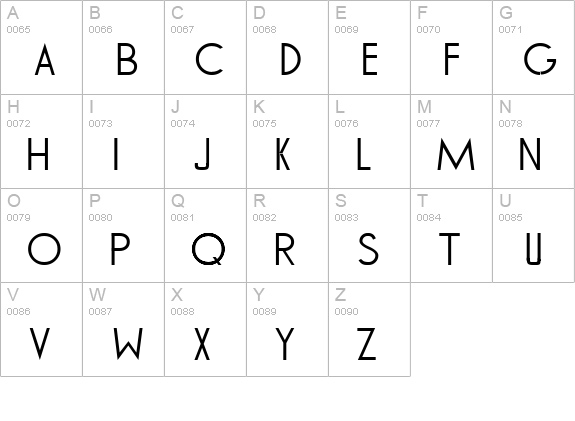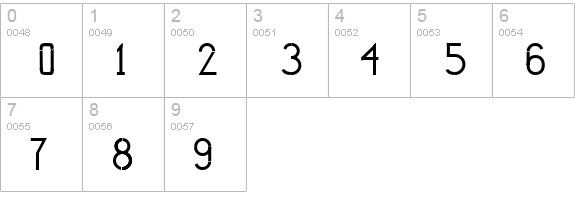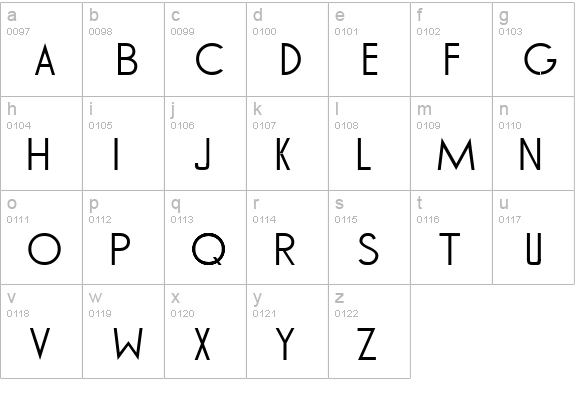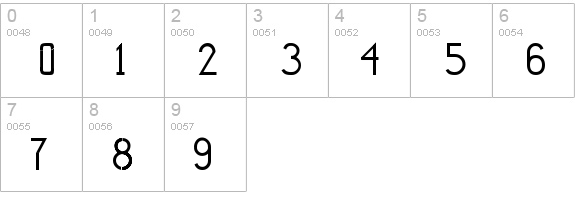
TOMMY HILFIGER AF font is a stunning display typeface that embodies the essence of modernity and sophistication. With its sleek lines and elegant curves, this font exudes a sense of timeless elegance. Designed with utmost precision and attention to detail, TOMMY HILFIGER AF font is perfect for creating eye-catching logos, stylish headlines, and captivating designs. What sets TOMMY HILFIGER AF font apart is not just its impeccable design, but also its availability. This remarkable font is freely available to download at FontsMarket.com. Whether you're a professional designer or a casual enthusiast, you can now effortlessly access this exceptional font and add a touch of finesse to your creative projects. TOMMY HILFIGER AF font boasts a wide range of characters, including uppercase letters, lowercase letters, numerals, punctuation marks, and special symbols. Its versatility allows you to experiment with different styles, sizes, and layouts, ensuring that your designs truly stand out. Whether you're designing a fashion magazine, a corporate branding project, or a personal blog, TOMMY HILFIGER AF font is the perfect choice to elevate your work to new heights. Its clean and contemporary aesthetic will captivate your audience, leaving a lasting impression. So why wait? Download TOMMY HILFIGER AF font today from FontsMarket.com and unlock a world of creative possibilities. With its seamless integration into various design software and its user-friendly nature, this font is a valuable asset that will enhance your design toolkit. Embrace the beauty of TOMMY HILFIGER AF font and watch your designs flourish with elegance and sophistication.